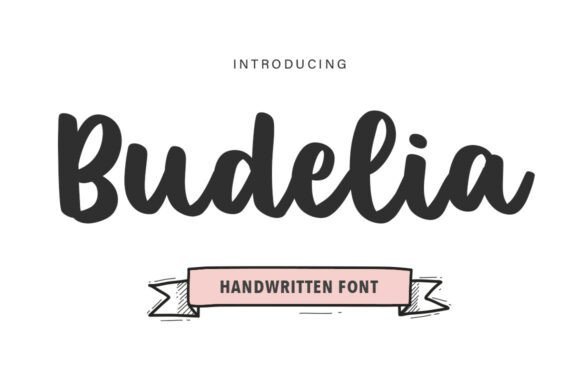
Have you ever sat at your desk, struggling to find the perfect font to capture the essence of your project? The blank page stares back at you, taunting you with its emptiness. Suddenly, your pen begins to dance across the paper, and you’re swept away by the flow of your own handwriting. The world around you melts away, leaving only the pure, unadulterated joy of creation.
This is the magic of the Budelia Font – a charming handwritten script that distills the essence of your imagination into a tangible, lovable design. With its confident strokes, soft fluidity, and playful rhythm, Budelia Font brings a sense of wonder and elegance to any project. Whether you’re designing modern nursery decor or artisanal branding, this font is a game-changer – offering a unique personality that’s both comforting and crafted.
Budelia Font Key Features
- Unique Characteristics: Budelia Font is a modern, elegant script font with a unique blend of sophistication and playfulness, making it ideal for creative and professional applications.
Budelia Font Review
Overall, I think the Budelia font is a nice, versatile addition to any design project. ✨ Its elegant script style makes it perfect for creating eye-catching headings and titles. The subtle flair at the end of each letter adds a touch of sophistication, making it suitable for luxury brands and high-end designs.
- ✨ Beautiful script style with elegant flair
- ✨ Great for creating attention-grabbing headings and titles
- ✨ Suitable for luxury brands and high-end designs
However, I do have a few concerns. ⚠️ The font may be a bit too ornate for some designs, and it can be difficult to read in smaller sizes. Additionally, the font may not be as suitable for body text, as it can be quite busy and overwhelming.
- ⚠️ May be too ornate for some designs
- ⚠️ Can be difficult to read in smaller sizes
- ⚠️ May not be suitable for body text
Overall, I would give the Budelia font 4 out of 5 stars. It’s a beautiful, elegant font that’s perfect for certain types of designs, but it may not be suitable for every project.
Best Practices
To get the most out of the Budelia Font, use it in conjunction with elegant and minimalist designs. This font is ideal for creating a sophisticated and modern look. Experiment with different font sizes, colors, and combinations to achieve a unique visual effect.
The Budelia Font is suitable for various applications, including:
- Corporate branding and marketing materials
- Editorial and publishing designs
- Event and exhibition graphics
To enhance the Budelia Font’s appearance, use it with a clean and simple layout. Avoid overusing bold and italic styles, as they can make the text look cluttered. Experiment with different font pairings to create a unique visual identity.